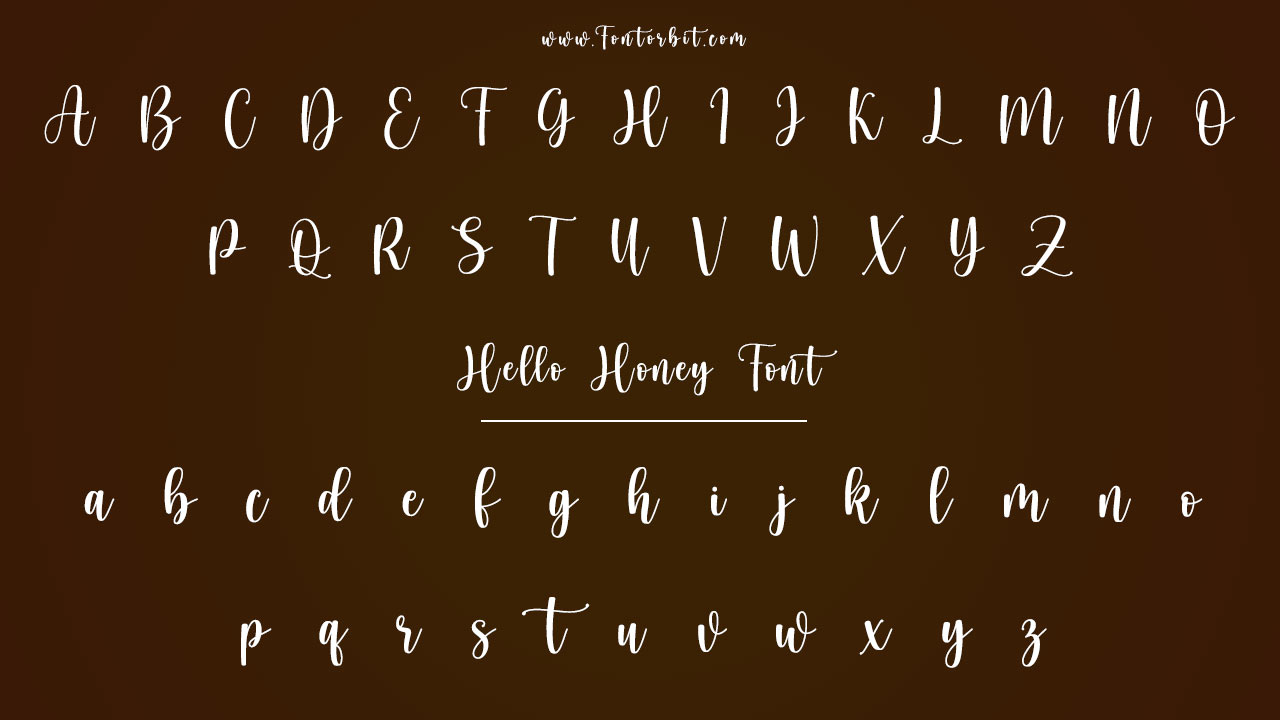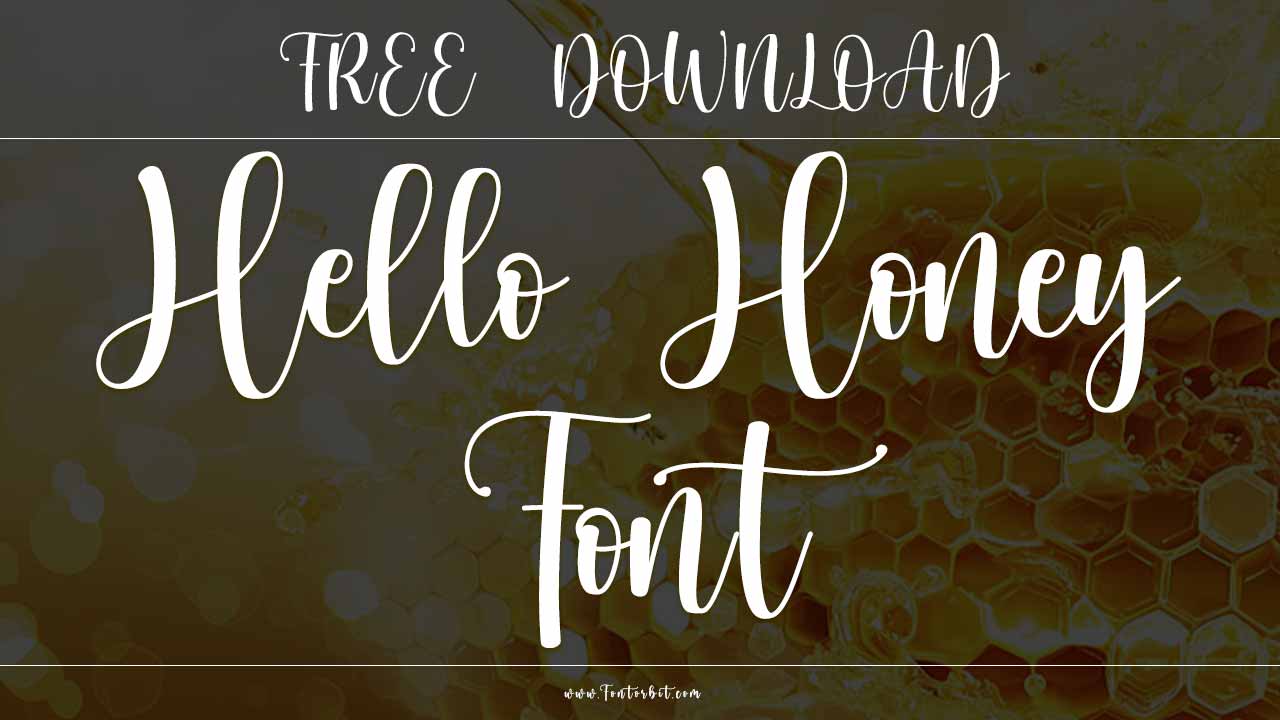
The Hello Honey font is an elegant and versatile script font that blends warmth with sophistication. This handwritten font, designed by Ef Studio, is perfect for branding, weddings, and invitations and adds a romantic and stylish touch to any project. Whether you need a logo, wedding, or display font, Hello Honey is an excellent choice.
Features of Hello Honey Font
The Hello Honey font is designed with unique characteristics that make it stand out. Here’s what you get:
- Elegant Handwritten Style – A smooth, flowing script that adds charm.
- Swashes & Ligatures – Includes letter and shift side swashes for decorative styling.
- Multi-Purpose Use – Ideal for logos, websites, branding, and wedding invitations.
- Special Characters & Glyphs – Features over 283 glyphs, making text customization easy.
Hello Honey Font Family Styles
The Hello Honey font family consists of:
- Hello Honey Regular – Standard script style.
- Hello Honey Tail – Includes beginning and ending swashes.
- Hello Honey Connecting Heart – A decorative version with connecting heart swashes.
Why Choose Hello Honey Font?
Here’s why this beautiful font is a great addition to your design toolkit:
- Perfect for Branding – A modern font ideal for personal and commercial branding.
- Romantic Aesthetic – A Valentine’s font choice for greeting cards and love-themed designs.
- Versatile Usage – Works well for logos, invitations, website design, and commercial purposes.
- Blends Well with Other Fonts – Pairs beautifully with sans serif, slab serif, and decorative fonts.
Font Comparison Chart
| Feature | Hello Honey | Similar Fonts |
| Style | Calligraphy Script | Tails Mermaid, Moriah Script |
| Swashes | Yes | Yes |
| Best Use | Logos, Invitations, Branding | Print, Web, Decorative |
- Customize with Swashes – Use shiftletterleft side swash and letter right side swash for a decorative touch.
- Pair with Other Fonts – Try retro fonts, blackletter fonts, and brush fonts for a unique look.
The Hello Honey font perfectly blends elegance, warmth, and versatility. Whether you need a script font for branding, a display font for logos, or a decorative font for invitations, this beautiful chic script is an excellent choice. Make your designs stand out with Hello Honey!
4. Are there similar fonts to Hello Honey?
Yes, it includes Tails Mermaid, Moriah Script, and Shanti Creny.
6. Does Hello Honey come with swashes?
Yes, it includes beginning and ending swashes, plus connecting heart swashes.